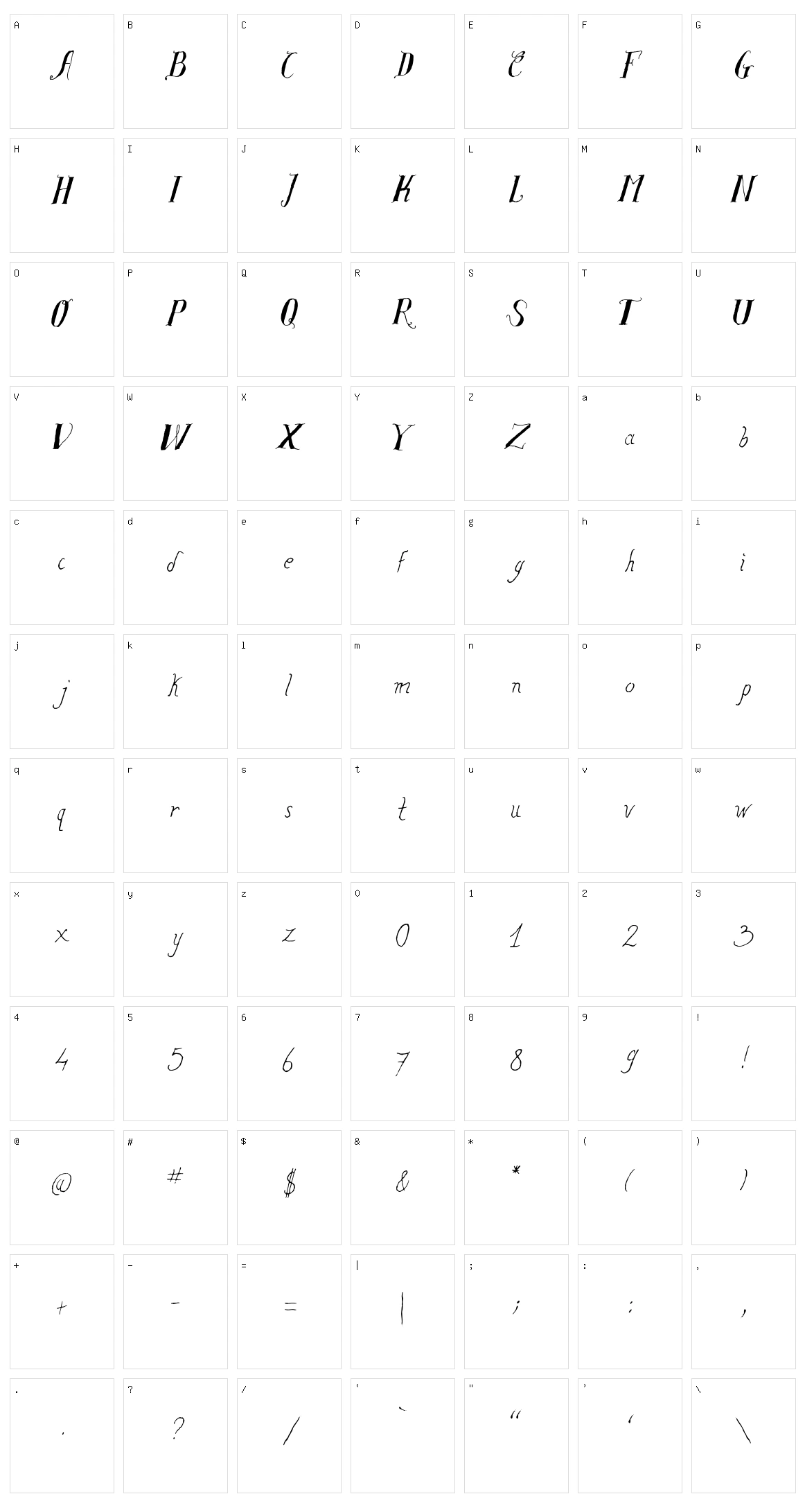
The free font Salvat Study is carefully designed by Steeven Salvat, showcasing a thoughtful balance of creativity and usability and falls under the Script font style. When you download the ZIP file, it contains only 104.74 KB of font files, making it lightweight and quick to download. Please review the license details below to understand permitted usage and distribution rights. If license information is not available, we recommend using this font for personal projects only or contacting the author directly for commercial usage permissions.